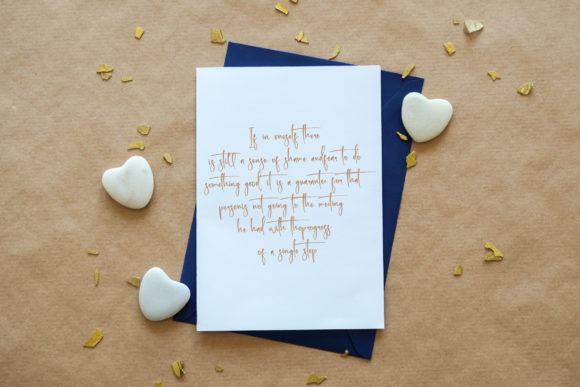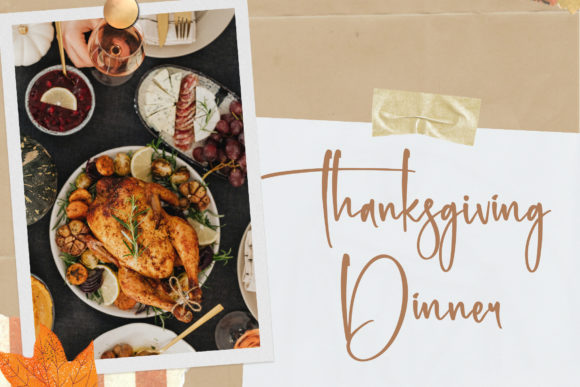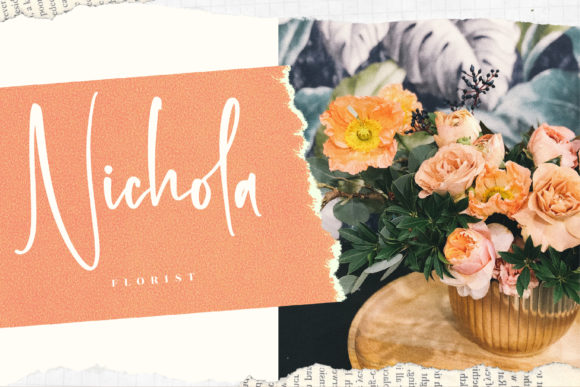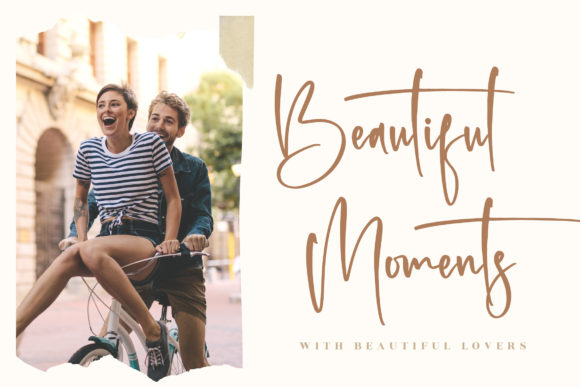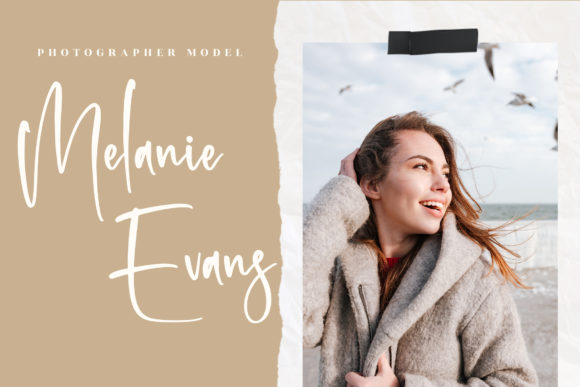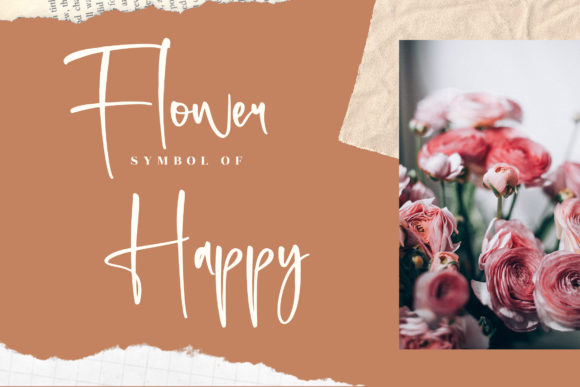
Discover the Elegance of Amsterdam Bright Font: A Timeless Handwritten Choice
In the realm of typography, few fonts manage to capture the essence of elegance and timelessness as effectively as the Amsterdam Bright Font. This delicate and charming handwritten font has been making waves among designers and crafters alike, and for good reason. Its unique blend of sophistication and playfulness makes it an ideal choice for a wide range of creative projects, from eye-catching logos and branding materials to inspiring quotes and more.
The Characteristics of Amsterdam Bright Font
So, what sets Amsterdam Bright Font apart from other fonts in its category? For starters, its delicate and intricate design lends a touch of refinement to any project it’s used in. The font’s handwritten nature gives it a personal and approachable feel, making it perfect for brands and designers looking to add a human touch to their work.
Another significant advantage of Amsterdam Bright Font is its versatility. Whether you’re working on a logo, a branding campaign, or a set of quotes, this font adapts seamlessly to different contexts, always managing to make a lasting impression. Its timeless quality ensures that your work won’t look dated anytime soon, saving you the hassle and expense of frequent redesigns.
PUA Encoding: Unlocking Full Creative Potential
Amsterdam Bright Font comes with PUA (Private Use Area) encoding, a feature that gives designers and crafters access to a wide range of glyphs and swashes. This means you can easily incorporate various flourishes and decorative elements into your work, taking your designs to the next level. The PUA encoding makes it straightforward to access and use these additional characters, allowing for greater creativity and flexibility in your projects.
Applications of Amsterdam Bright Font
The applications of Amsterdam Bright Font are vast and varied. Here are a few ideas to get you started:
- Logos and Branding: Create a memorable brand identity with a logo that stands out. Amsterdam Bright Font’s unique charm can help your brand leave a lasting impression on customers.
- Quotes and Posters: Add a touch of elegance to your inspirational quotes and posters. The font’s readability and aesthetic appeal make it perfect for large and small text alike.
- Stationery and Invitations: Elevate your stationery, invitations, and greeting cards with a font that exudes sophistication and warmth.
- Digital Content: Use Amsterdam Bright Font in your digital content, such as blog headers, social media graphics, and website elements, to add a personal touch and stand out from the crowd.
Why Designers and Crafters Love Amsterdam Bright Font
Designers and crafters love Amsterdam Bright Font for its unique combination of elegance, versatility, and ease of use. Here are a few reasons why:
- Ease of Use: The font’s PUA encoding makes it easy to access and use a wide range of glyphs and swashes, allowing for greater creativity without the complexity.
- High-Quality Design: Amsterdam Bright Font is crafted with attention to detail, ensuring that it looks great in both digital and print formats.
- Support for Creative Projects: Whether you’re working on a commercial project or a personal craft, this font provides the perfect blend of style and functionality.
Amsterdam Bright Font is more than just a font – it’s a tool for creative expression. Its delicate and timeless handwritten design, combined with PUA encoding for easy access to glyphs and swashes, makes it an invaluable asset for designers and crafters. Whether you’re looking to create eye-catching logos, compelling branding materials, or inspiring quotes, Amsterdam Bright Font is the perfect choice. Discover the elegance and versatility it has to offer and take your creative projects to new heights.